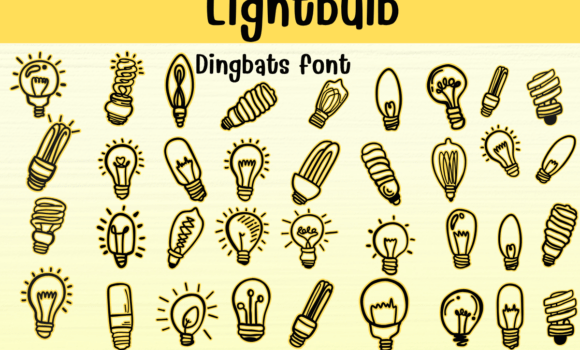
lightbulb
Lightbulb Font - Featured Image
Lightbulb Font – Free Download Introduction to Lightbulb Font Lightbulb is a dingbats font with a sketched theme. 📸 Preview Gallery 5 images 📌 Product Name Lightbulb Font 👤 Author Sontaya 📂 Category Explore ⬇️ Download Lightbulb Font FREE Free